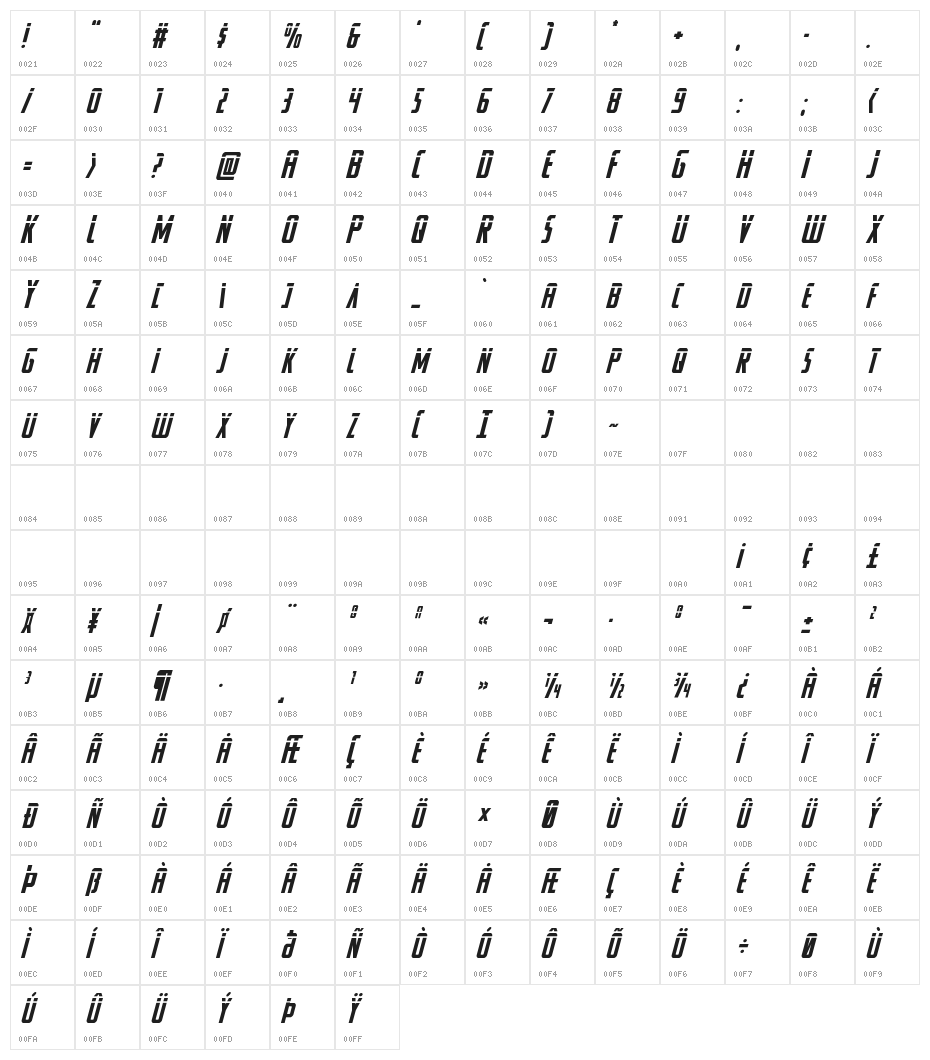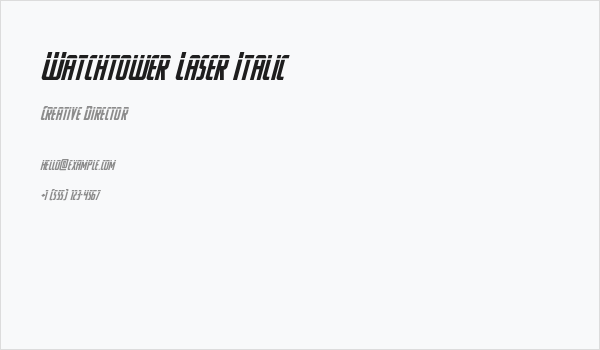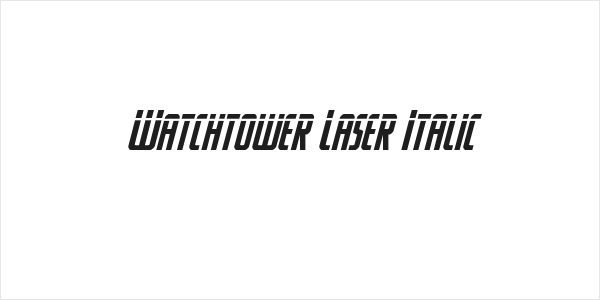
Watchtower Laser Italic Font
Watchtower Laser Italic Description
This font features a bold, italicized style with a futuristic and dynamic appearance. The characters are sharply angled, giving a sense of motion and speed. The uppercase and lowercase letters maintain a consistent slant, enhancing the italic effect. The numbers and special characters follow the same design principles, ensuring uniformity across all glyphs. The font's design is reminiscent of digital or sci-fi themes, making it suitable for projects that require a modern and edgy look.
| Proposed Projects | Ideal for sci-fi themed designs, video game titles, technology branding, and dynamic posters. |